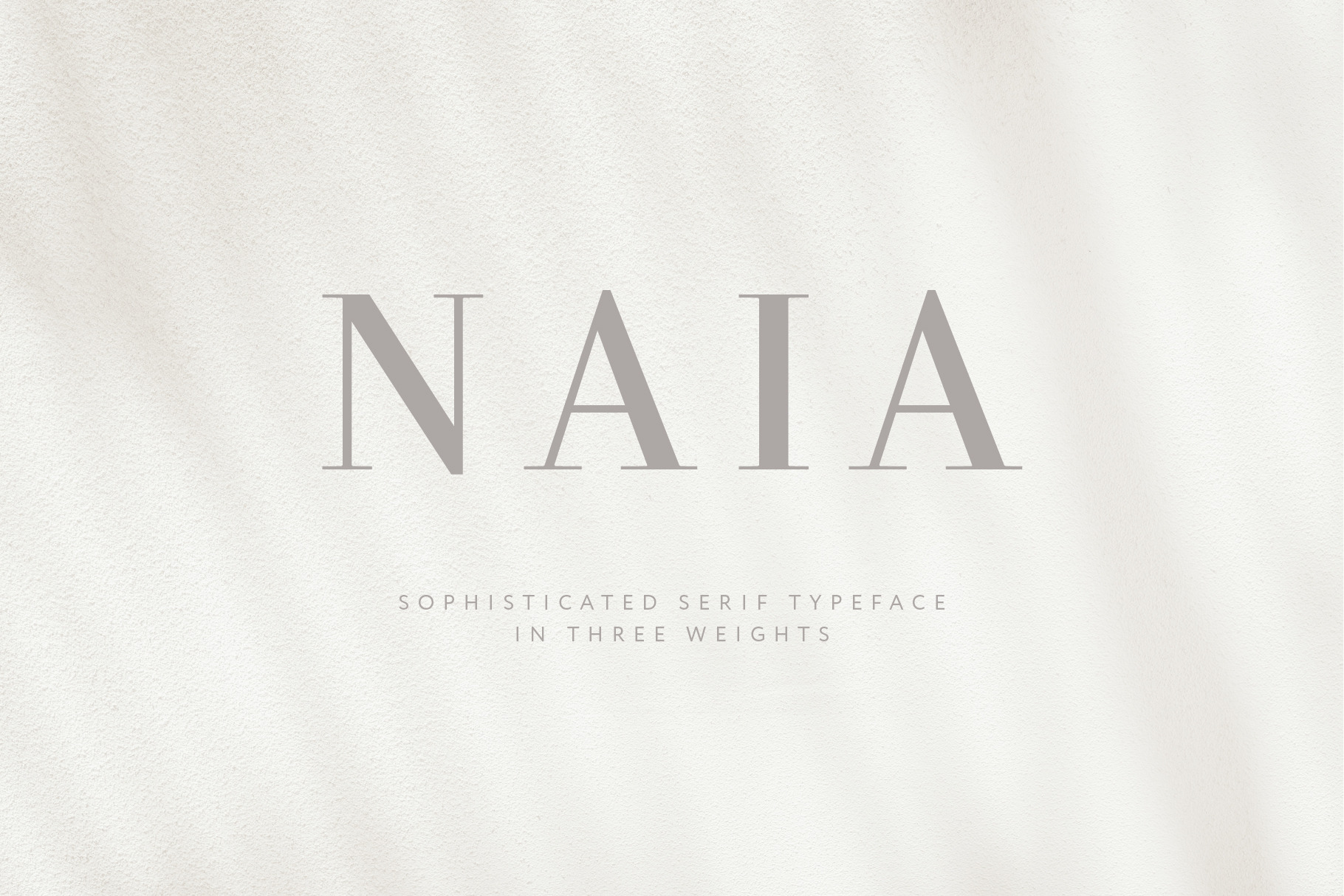
Naia - Sophisticated Serif Typeface
Naia is a modernist, sophisticated, serif typeface. It is recommended for headers. This font family includes all Latin characters (including accents), numbers, special characters, and punctuation.